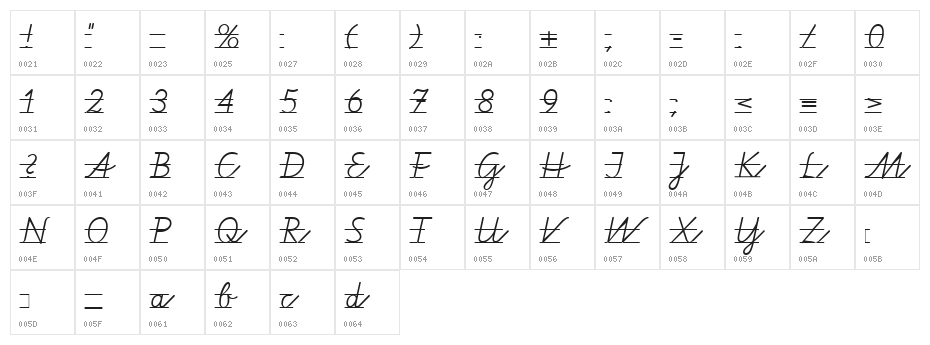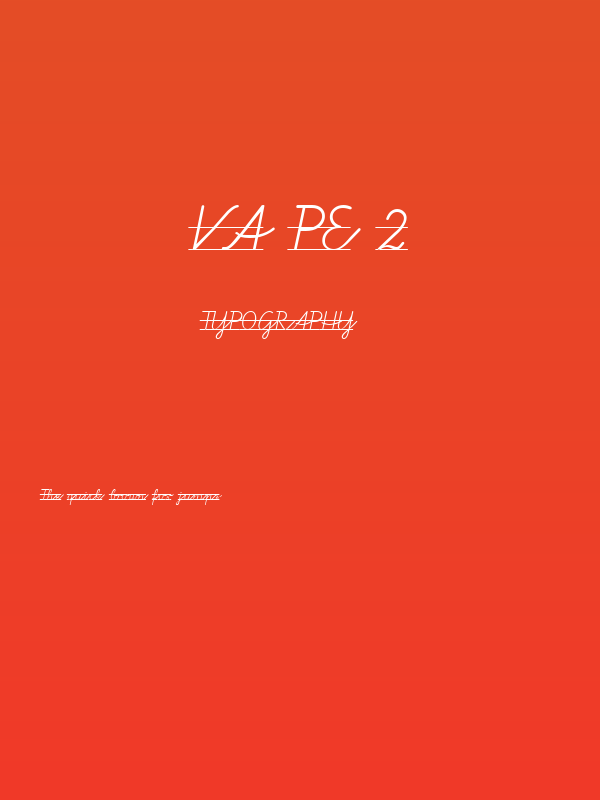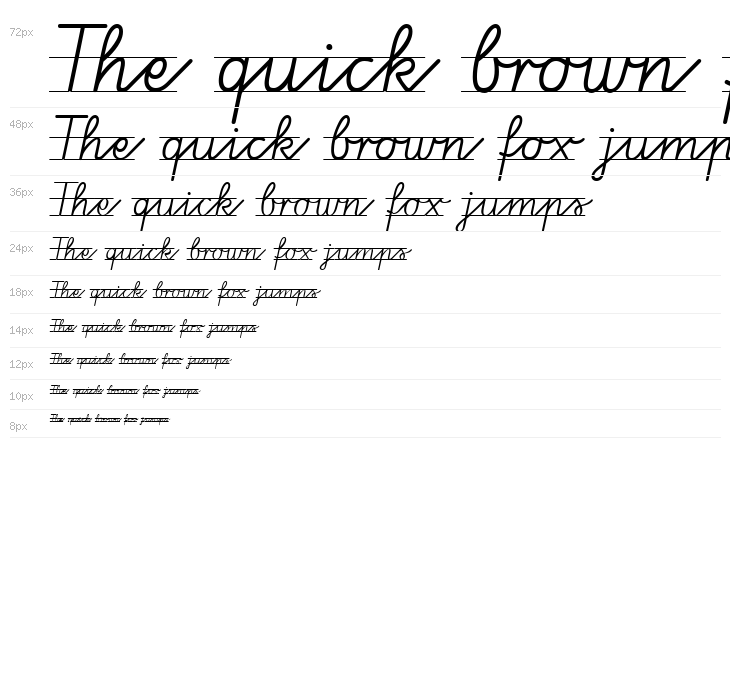
VA Pe 2 Font
VA Pe 2 Description
This font exhibits a classic cursive style, characterized by its flowing, connected letters that mimic traditional handwriting. The uppercase letters are elegant and slightly slanted, maintaining a consistent baseline that enhances readability. The lowercase letters are smoothly connected, with a natural flow that is both graceful and legible. The numerals are distinct and maintain the cursive style, adding a touch of sophistication. Special characters are well-integrated, matching the overall aesthetic. This font is ideal for projects that require a personal, handwritten touch, such as invitations, greeting cards, or branding materials that aim to convey elegance and tradition.
| Use Case | Headlines, Invitations, Personal stationery |
| Proposed Projects | Ideal for wedding invitations, personal stationery, branding, and elegant signage. |